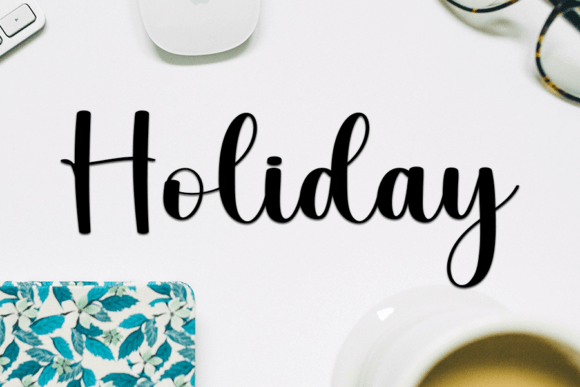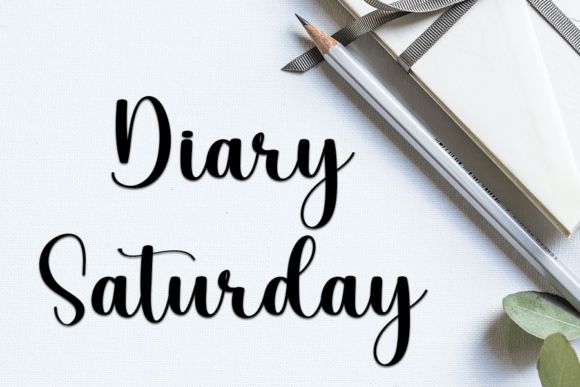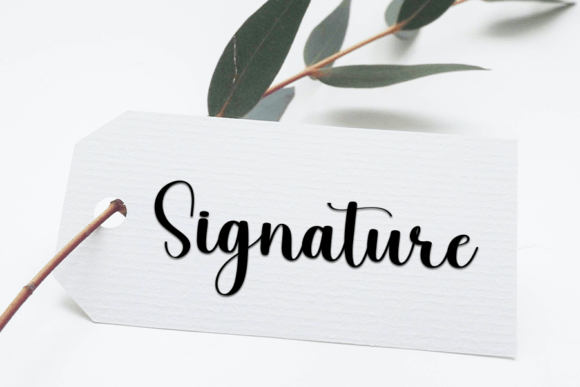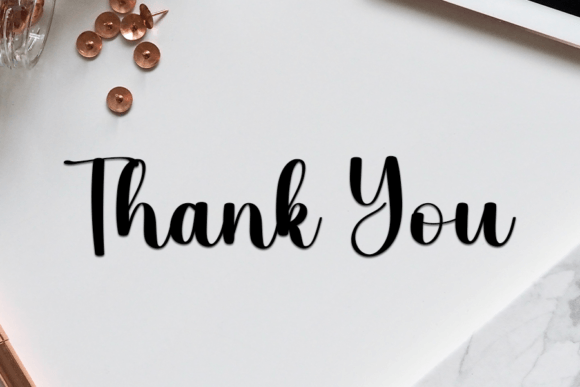
Dutton Font: Elevate Your Designs with a Delicate Handwritten Touch
In the world of typography, fonts play a crucial role in conveying the tone and personality of a design. For crafters, designers, and DIY enthusiasts, finding the perfect font can be a daunting task. However, if you’re looking for a cool and unique design element, look no further than the Dutton Font. This delicate handwritten font is carefully crafted to add a touch of elegance and sophistication to your projects.
What is Dutton Font?
Dutton Font is a beautiful, hand-crafted font designed for those who appreciate the art of handwritten typography. Its delicate strokes and unique character make it an ideal choice for a variety of design applications, including writing letters, creating invitations, food product labels, titles, and more. Whether you’re a professional designer or a crafty DIY enthusiast, Dutton Font is sure to inspire your creativity.
Key Features of Dutton Font
- Delicate Handwritten Style: Dutton Font boasts a beautiful, hand-crafted style that adds a touch of elegance to any design.
- Unique Character: The font’s unique character and delicate strokes make it stand out from other fonts, giving your designs a distinctive look.
- Versatile: Dutton Font can be used for a wide range of design applications, including letters, invitations, food products, titles, and more.
- Easy to Read: Despite its delicate nature, Dutton Font is easy to read, making it perfect for body text and headlines.
Uses of Dutton Font
Dutton Font is an incredibly versatile font that can be used in various design projects. Here are some ideas to get you started:
- Wedding Invitations: Add a touch of elegance to your wedding invitations with Dutton Font.
- Food Blogging: Use Dutton Font to create beautiful headings and titles for your food blog or recipe website.
- Stationery: Create custom stationery, including letters, notecards, and journals, with Dutton Font.
- Branding: Use Dutton Font to create a unique and memorable brand identity for your business or product.
Tips for Using Dutton Font
To get the most out of Dutton Font, here are some tips to keep in mind:
- Pair with Other Fonts: Experiment with pairing Dutton Font with other fonts to create a unique and visually appealing design.
- Adjust Font Size: Adjust the font size to suit your design needs, from large headings to smaller body text.
- Use in Combination with Images: Combine Dutton Font with beautiful images to create a stunning visual effect.
In conclusion, Dutton Font is a beautiful, delicate handwritten font that can elevate your designs to the next level. Its unique character, versatility, and ease of use make it an ideal choice for designers, crafters, and DIY enthusiasts. Whether you’re creating wedding invitations, food labels, or custom stationery, Dutton Font is sure to inspire your creativity and add a touch of elegance to your designs.